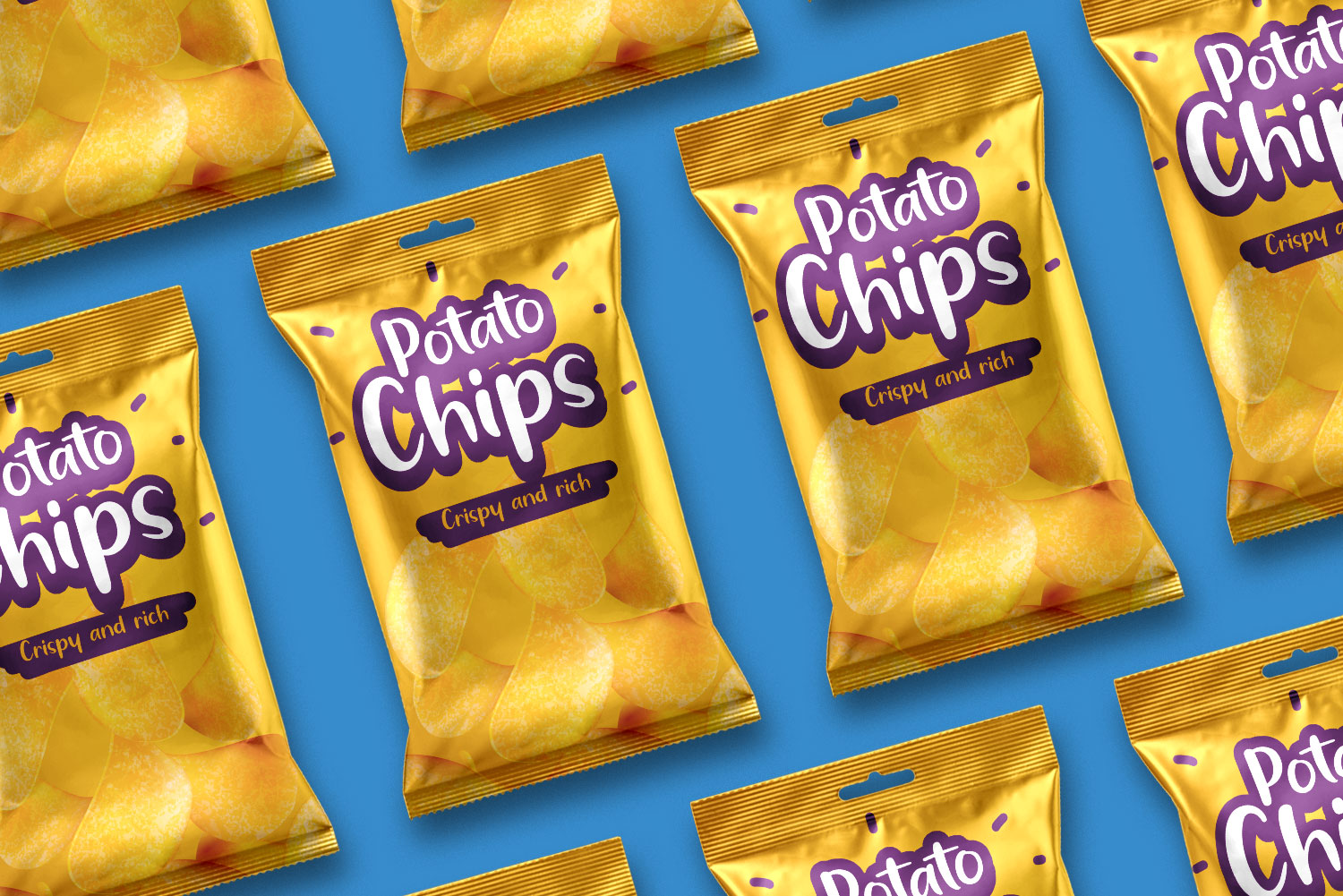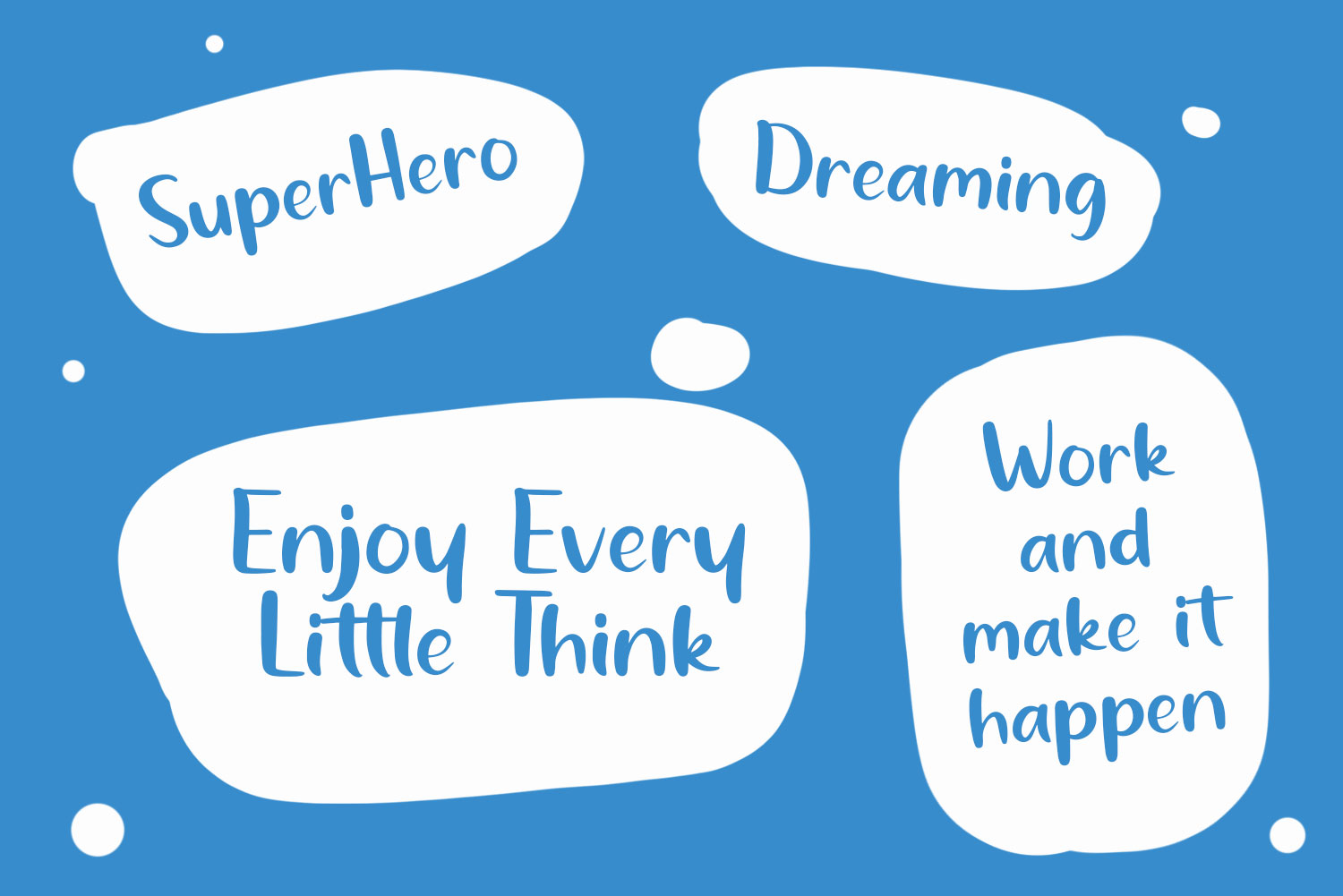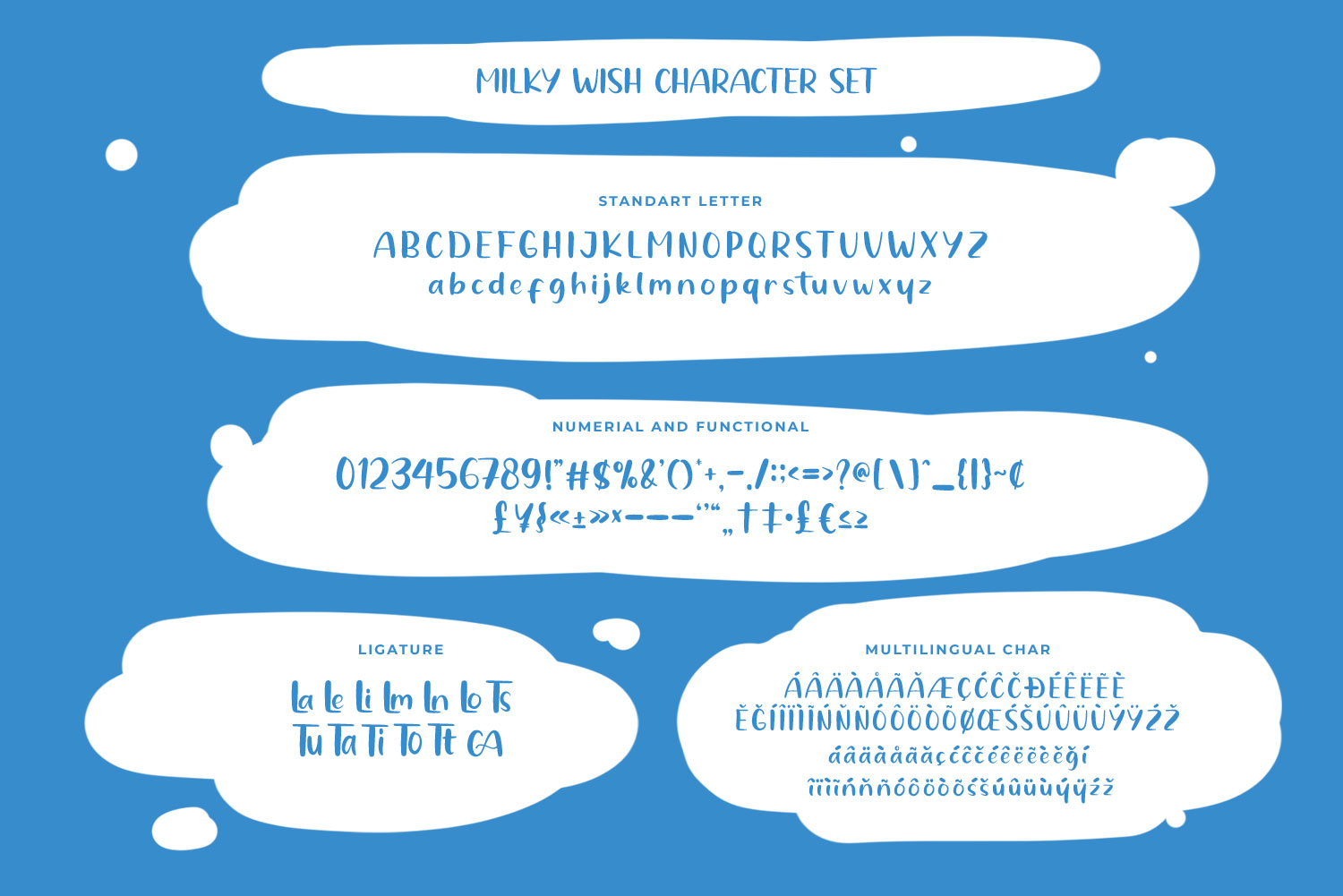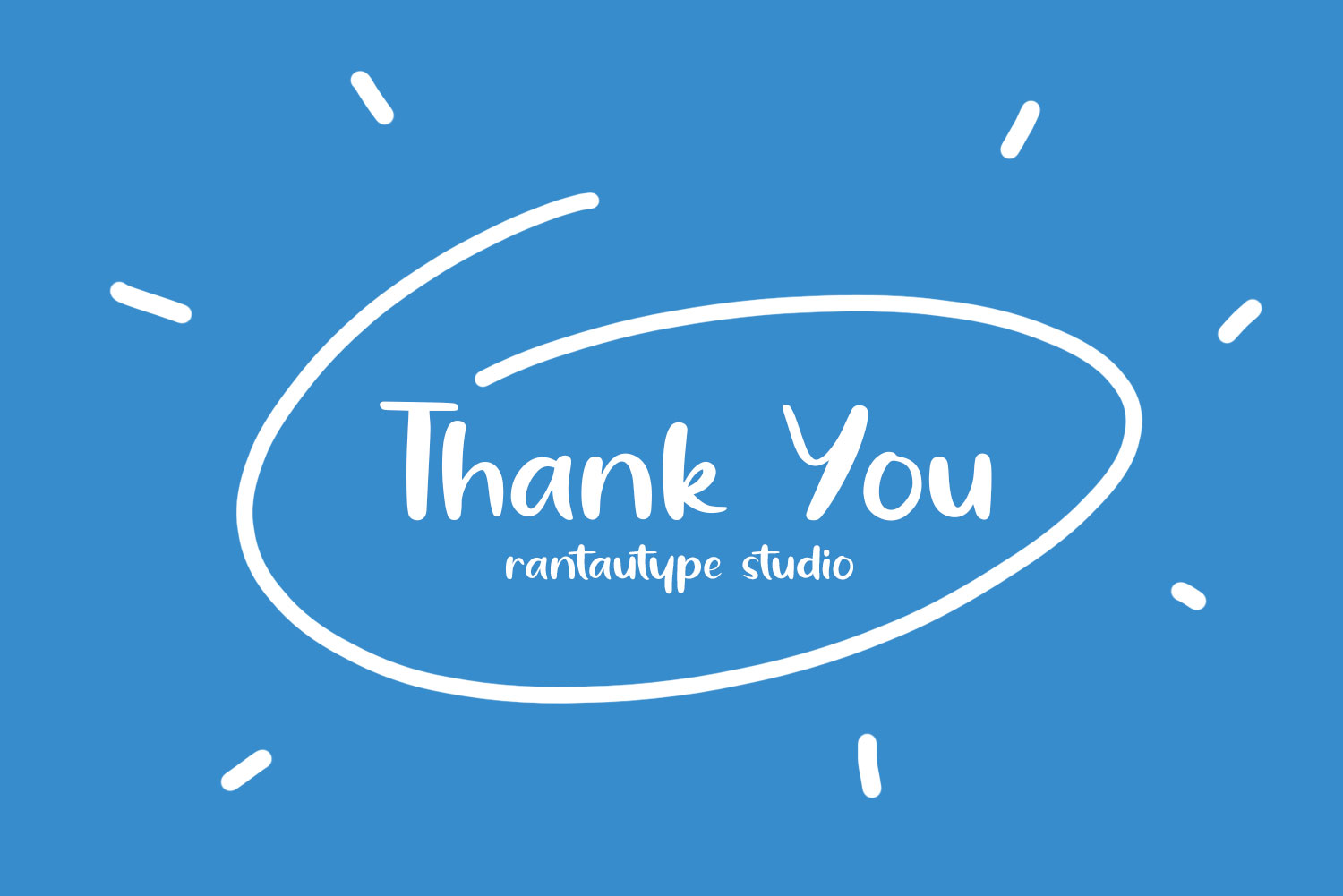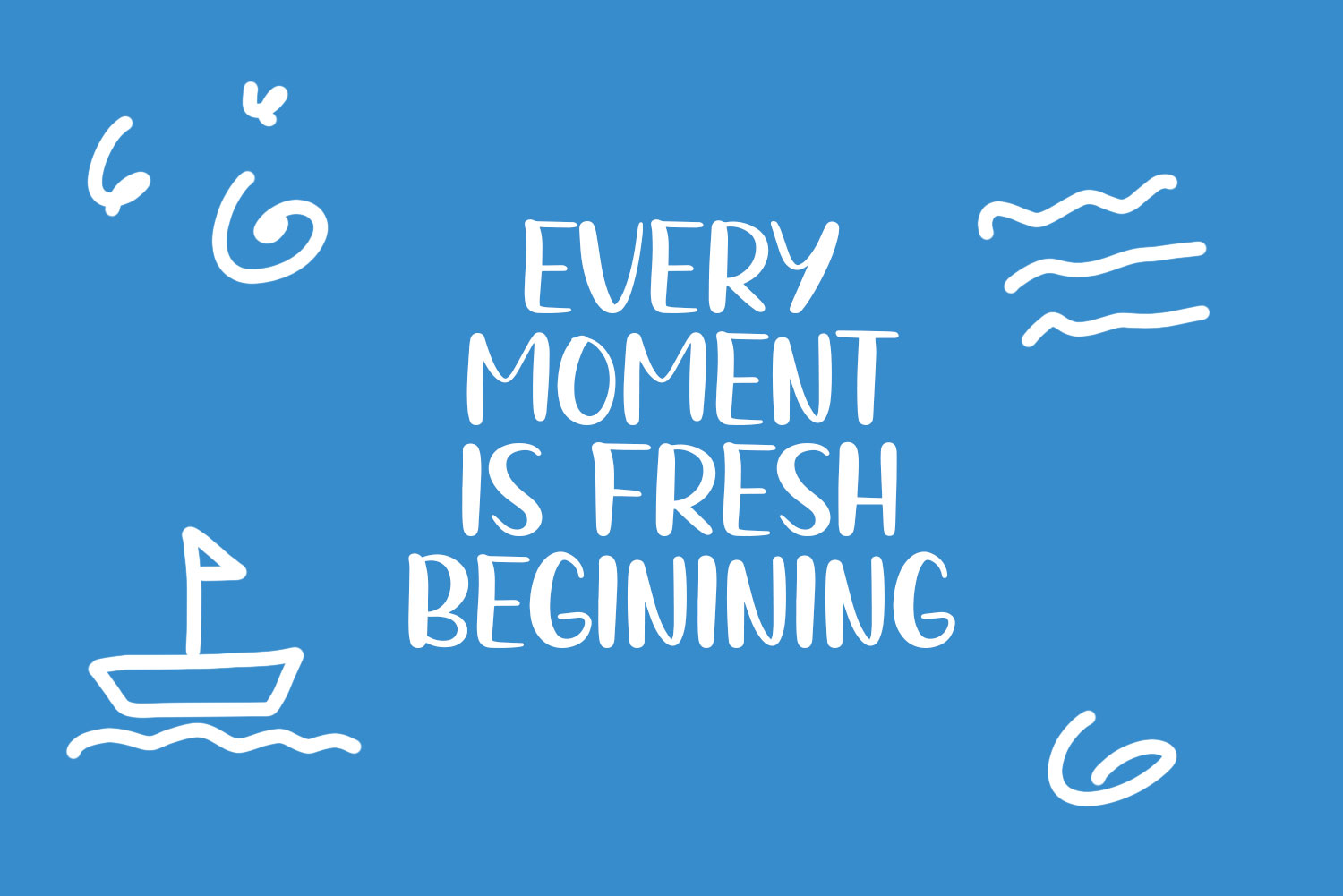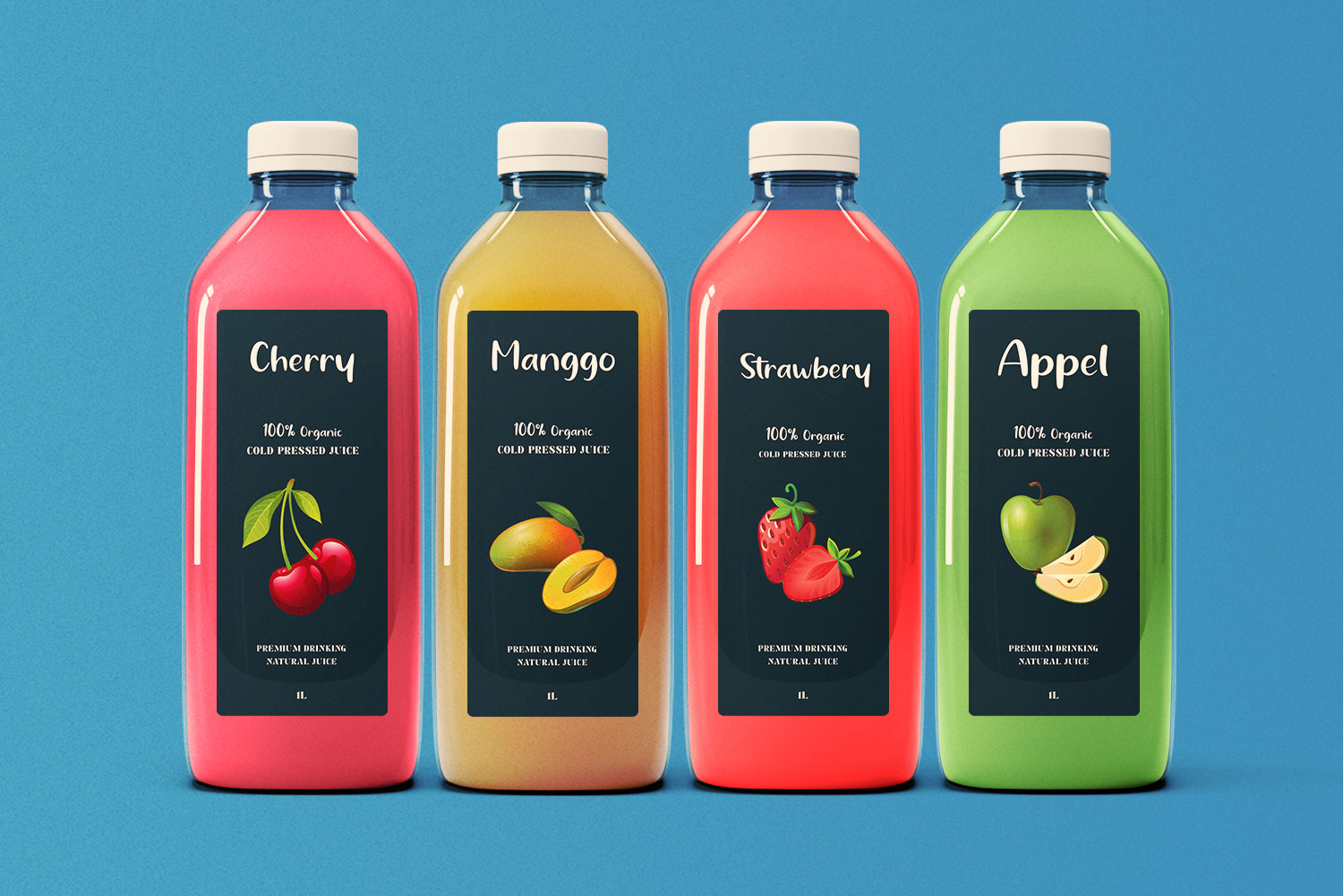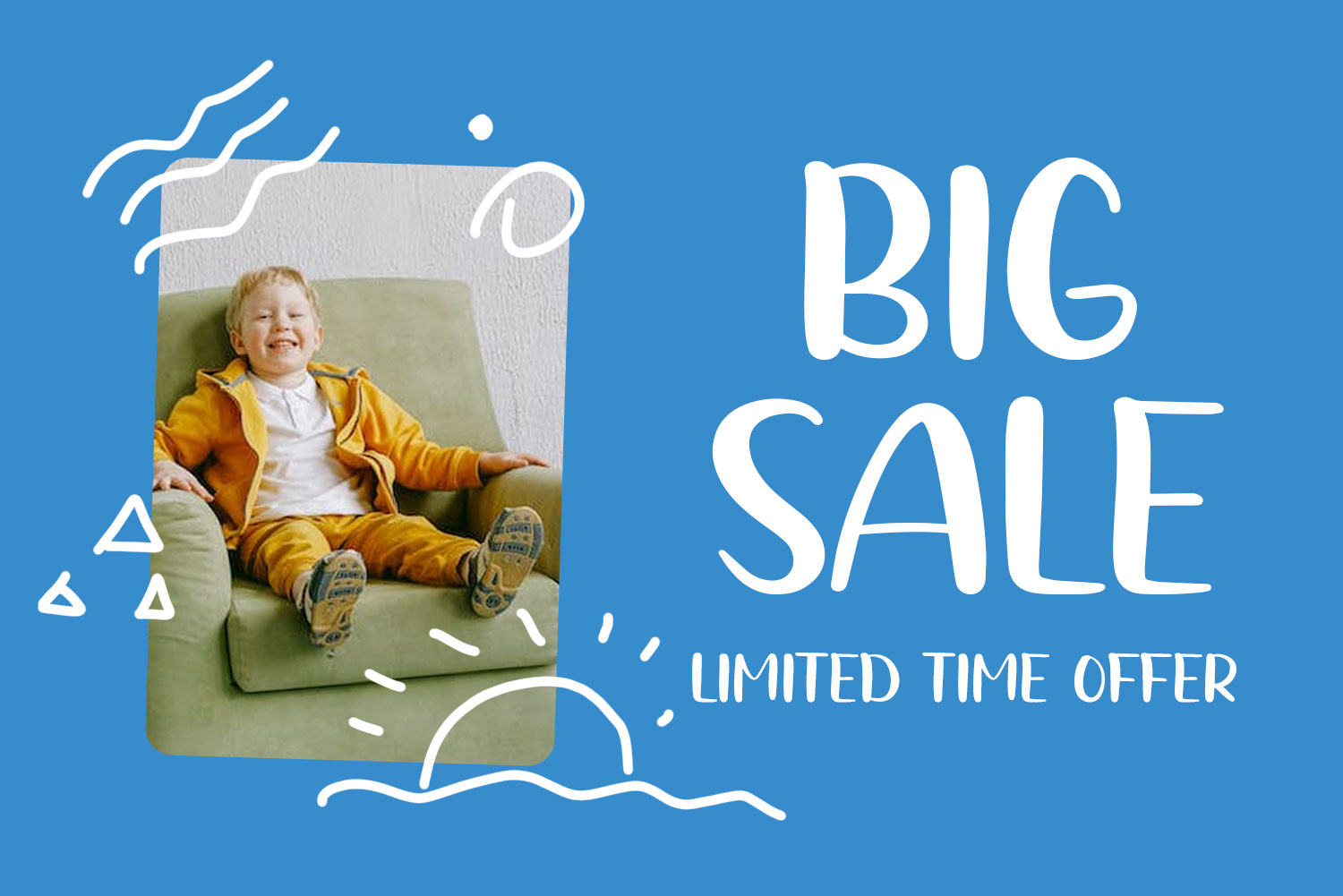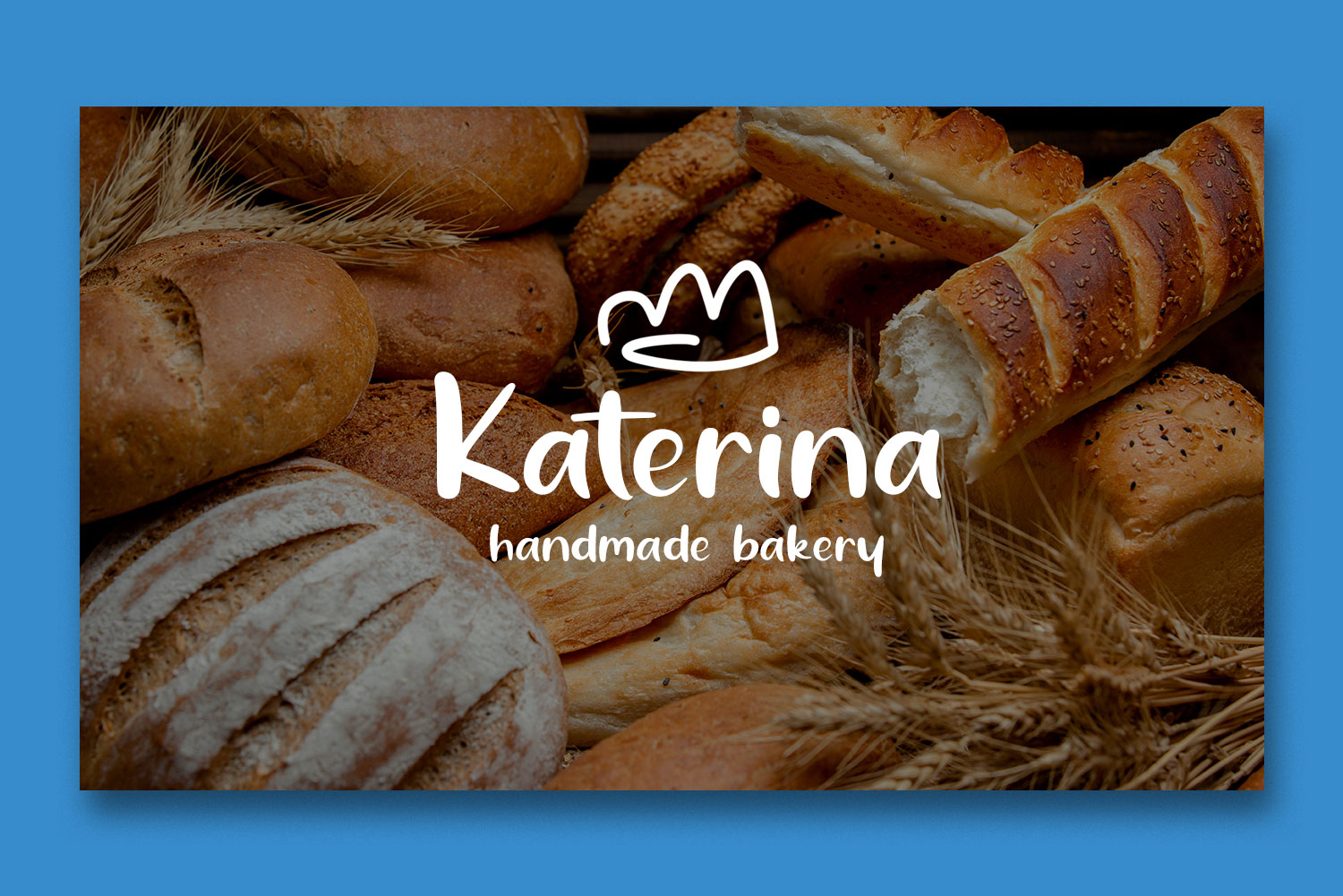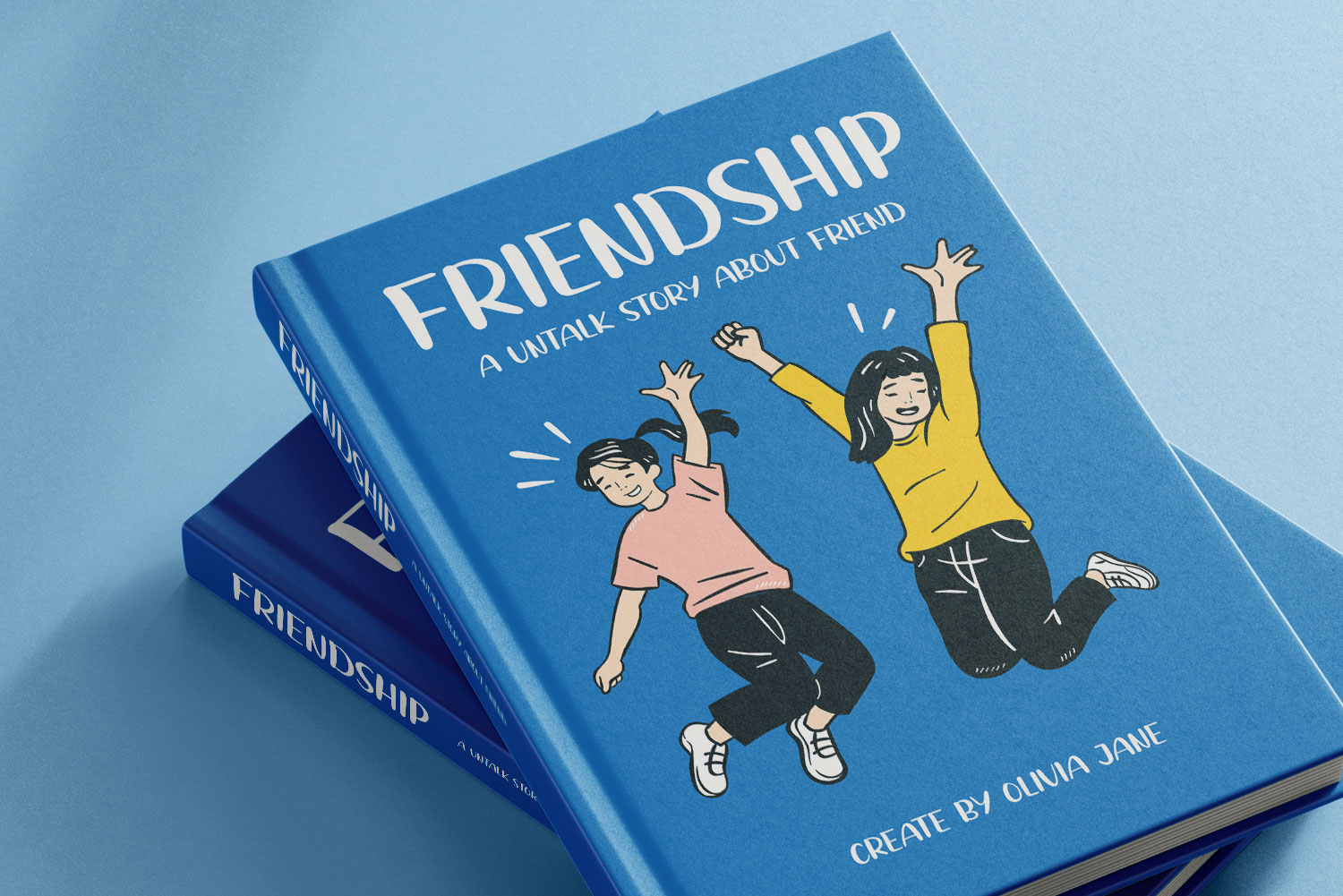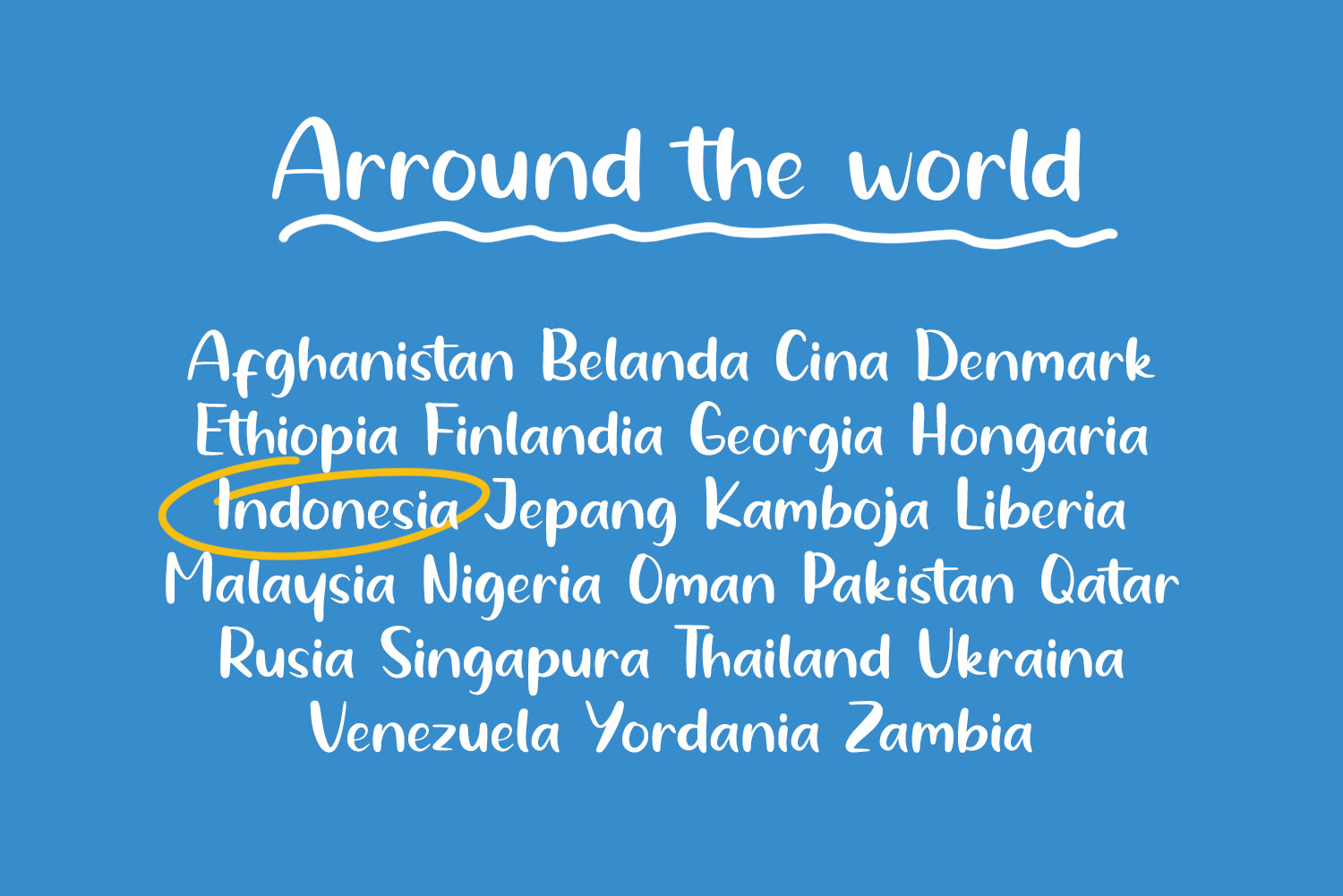
Milky Wish Modern Handwritten font
Milky wish is modern handwritten font and fancy look . Milky wish come with ligature and Multilingual character support.
Milky wish is perfectly choice for any creative endeavor, such as logos, title, watermark on photography, cover, branding, display and magazine, wedding event, corporate brand, quotes, album cover, business card, business project and many other design project with playful taste.
Fonts include Multilingual Support for: Afrikaans, Albanian, Asu, Basque, Bemba, Bena, Breton, Chiga, Cornish, Dutch, English, Estonian, Filipino, Finnish, Indonesian, Irish, Italian, Luxembourgish, Morisyen, North, Ndebele, Nyankole, Portuguese, Quechua, Romansh, Scottish, Gaelic, Sena, Shambala, Shona, Soga, Somali, Spanish, Swedish, Swiss, German.